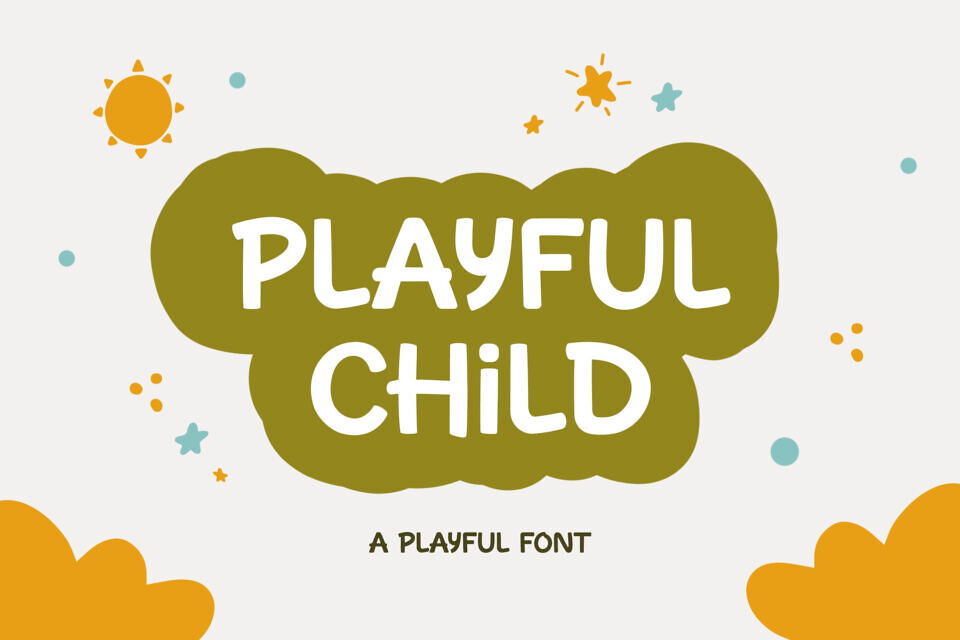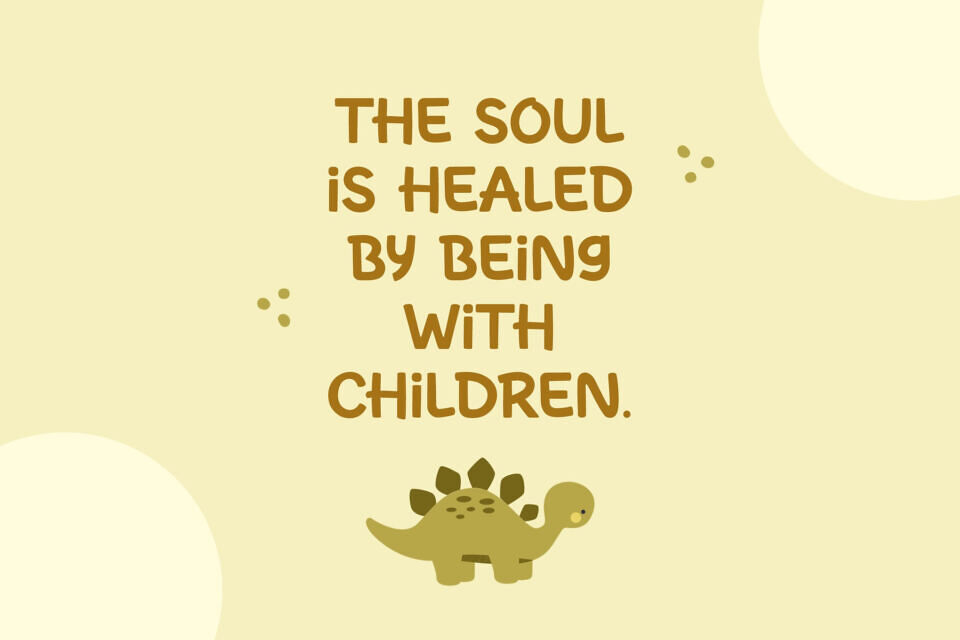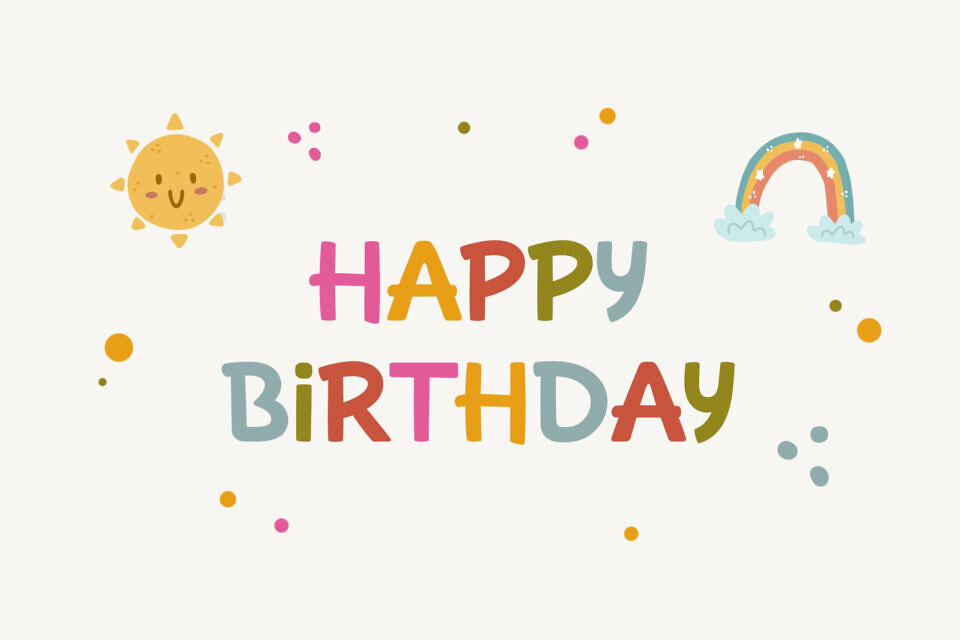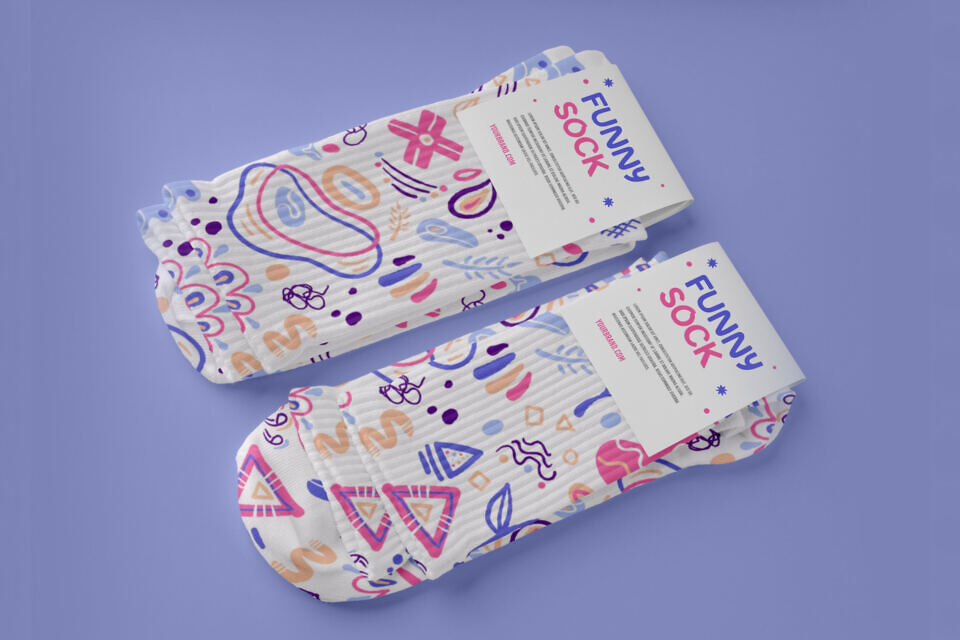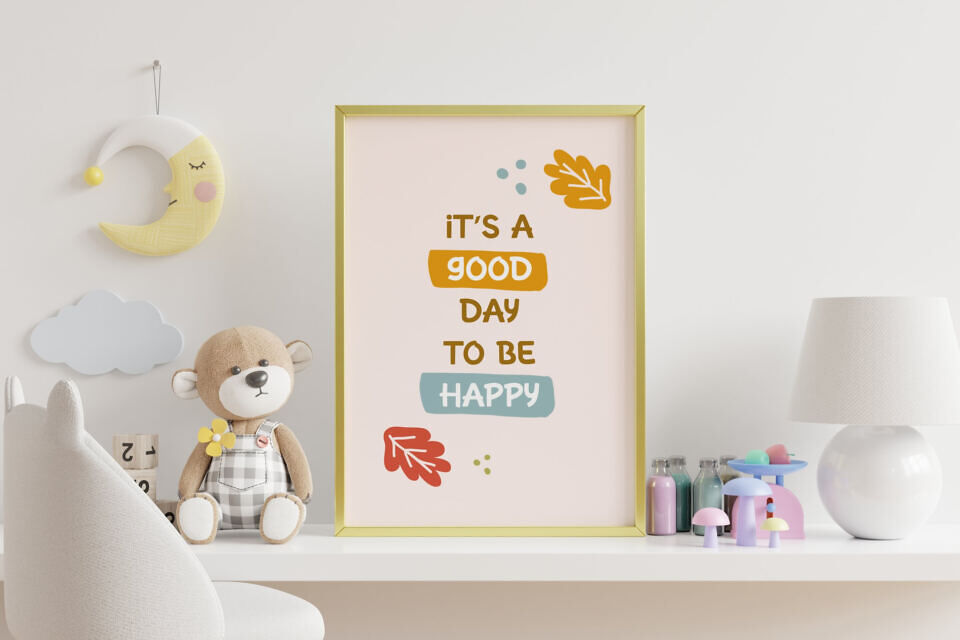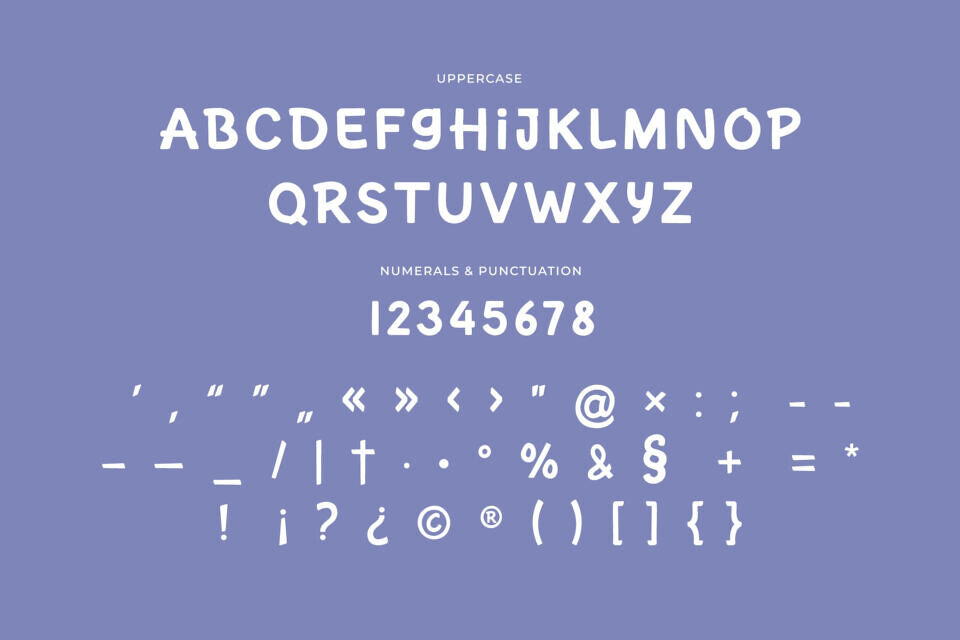
Playful Child is a charming display font inspired by the joyful spirit of childhood. Its rounded shapes, lively curves, and friendly letterforms create a fun and energetic look that instantly grabs attention.
Perfect for kids-themed designs, this playful typeface works great for posters, school projects, toy packaging, branding, and creative headlines. With its cheerful personality and decorative style, Playful Child adds a bright, imaginative touch to any design aimed at fun, creativity, and youthful expression.